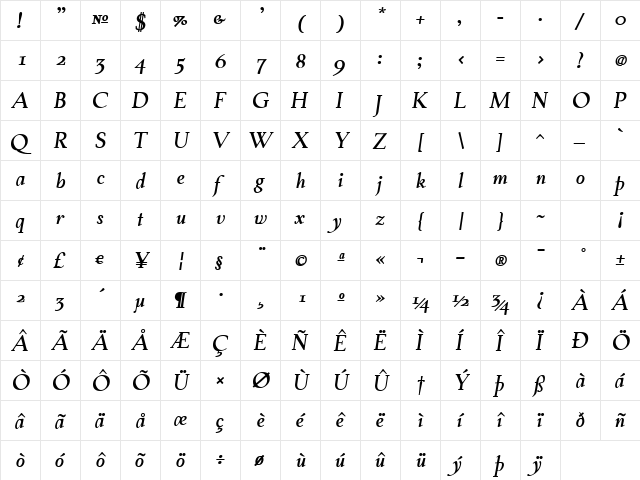
TaskBold Italic Regular Font Preview
Design Context for TaskBold Italic Typeface
TaskBold Italic takes a measured approach to typography — its balanced proportions and neutral character make it a reliable workhorse for both digital and print work. The slanted form adds forward momentum and visual energy. The heavy weight commands attention and anchors typographic hierarchies.
Pro Tip: Try TaskBold Italic for annotation and caption copy alongside an upright companion — the contrast in angle creates a dynamic but ordered typographic system.